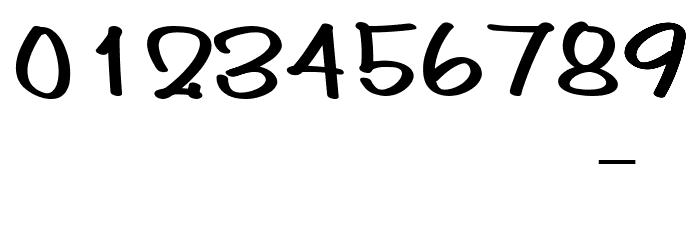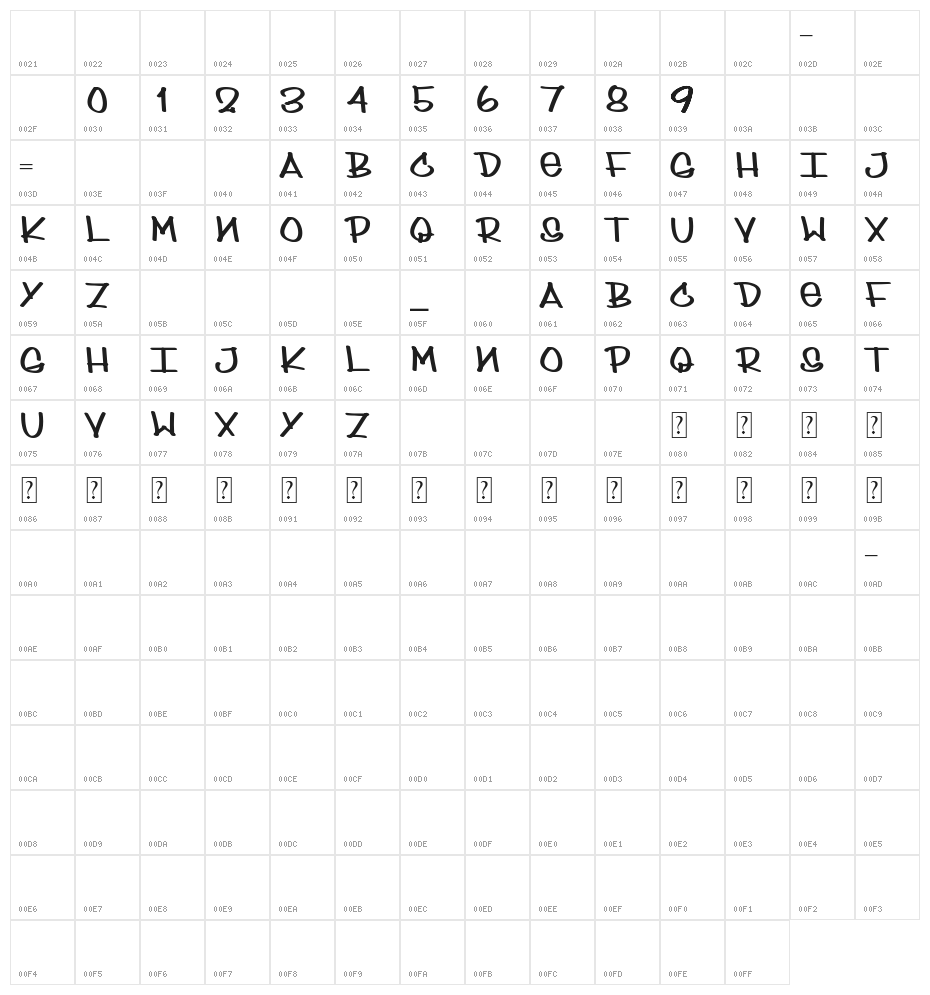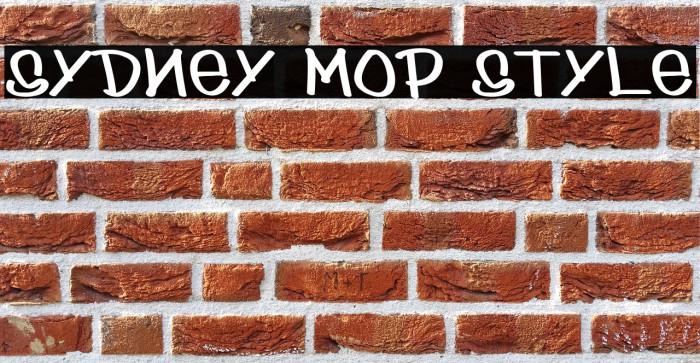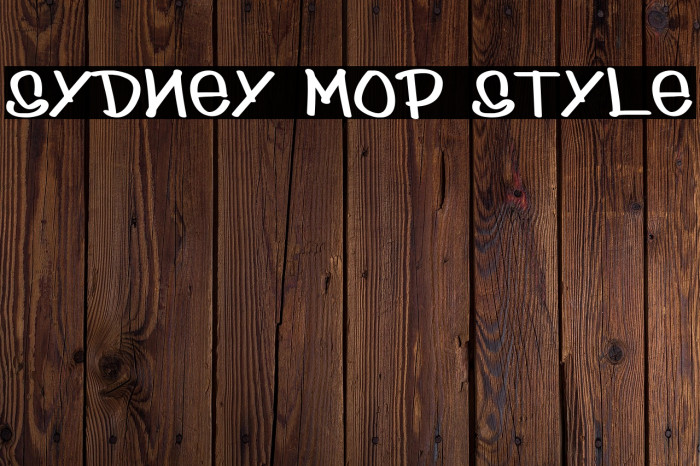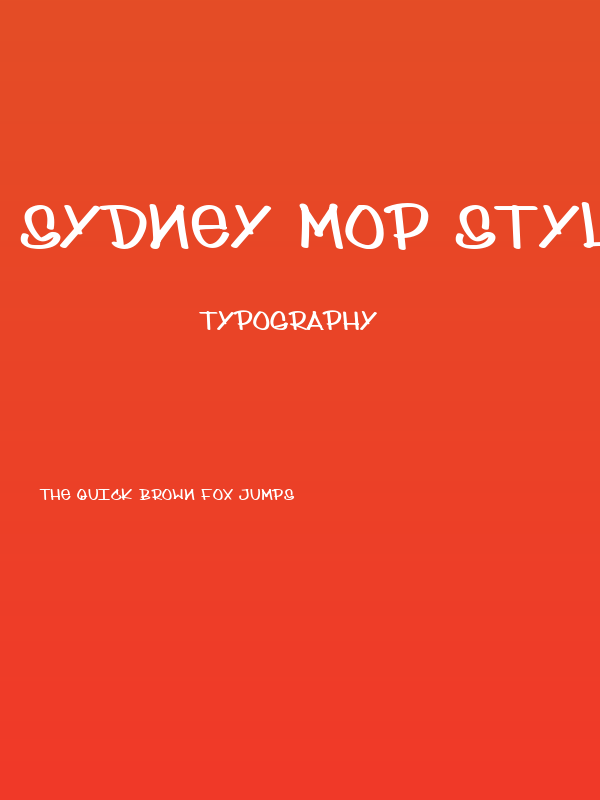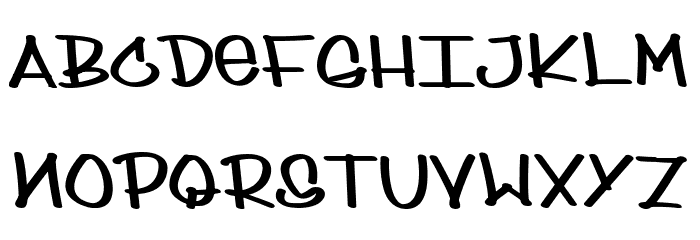
sydney mop style Font
sydney mop style Description
This font exudes a playful and casual vibe, characterized by its handwritten style that mimics the fluidity of a marker or brush pen. The letters are bold and rounded, with a slightly uneven baseline that adds to its informal charm. Each character has a unique flair, with some letters featuring exaggerated loops and curves, enhancing its whimsical appearance. The numbers and special characters maintain this lively aesthetic, making the font suitable for creative and informal applications.